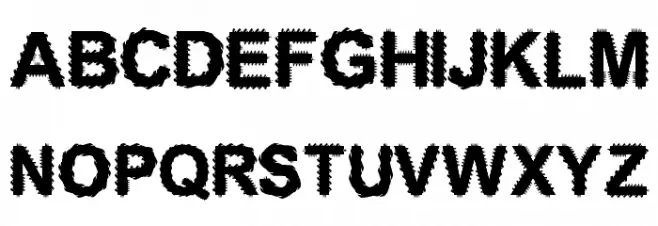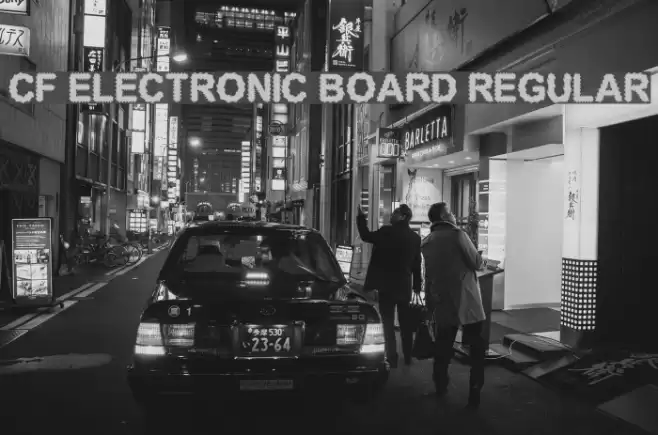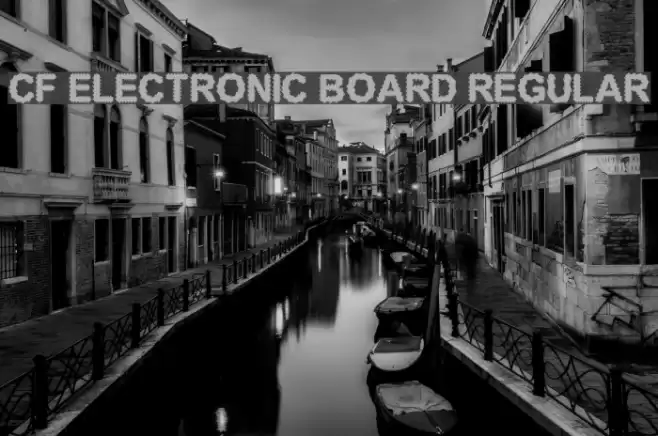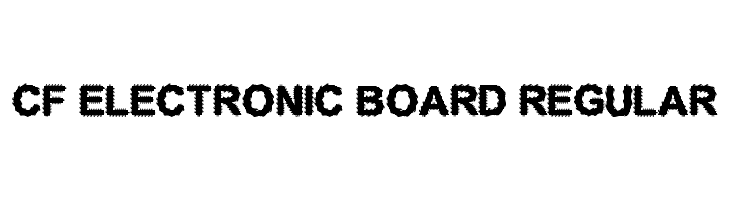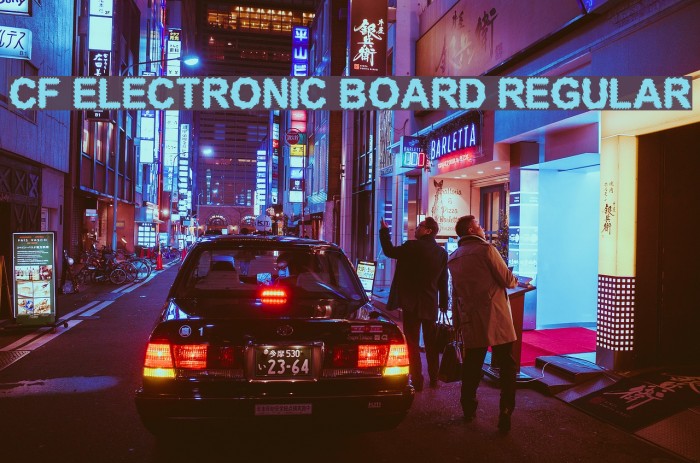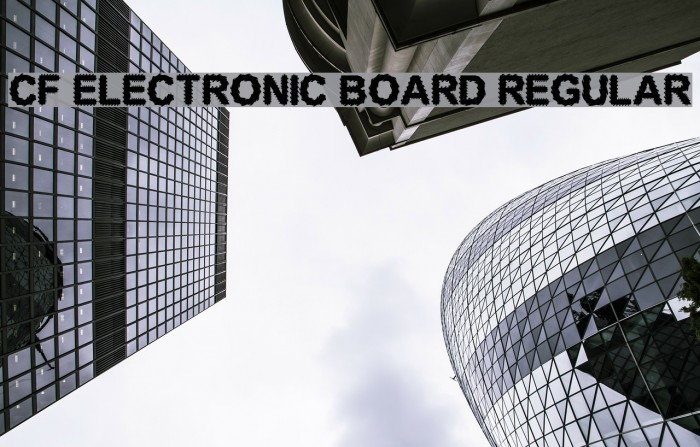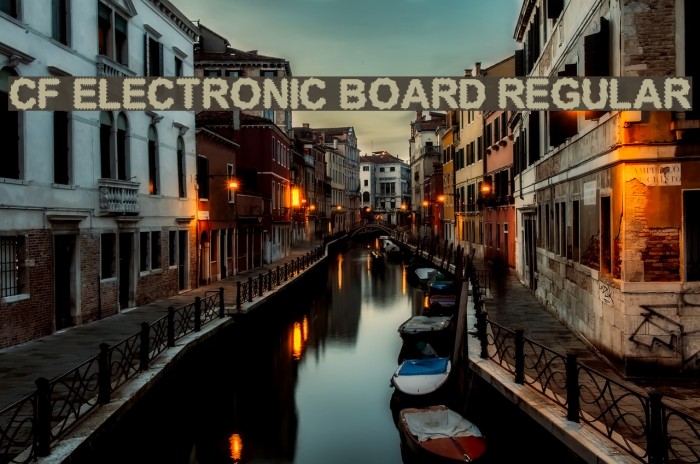
CF Electronic Board Regular
This font features a bold and distinctive design with a jagged, electronic-inspired pattern that runs through each character. The uppercase letters are uniform in height, creating a cohesive and structured appearance. The sharp, angular edges give it a modern and edgy feel, reminiscent of digital or electronic displays. The font maintains a consistent weight throughout, emphasizing its boldness and making it highly visible. Its unique style is perfect for projects that require a futuristic or technological aesthetic, adding a dynamic and eye-catching element to any design.
A bold, jagged font with an electronic-inspired design, perfect for futuristic themes.
- Proposed Projects: Ideal for tech-related branding, video game titles, electronic music album covers, and digital art projects.
- Use Case: Logos, Headlines